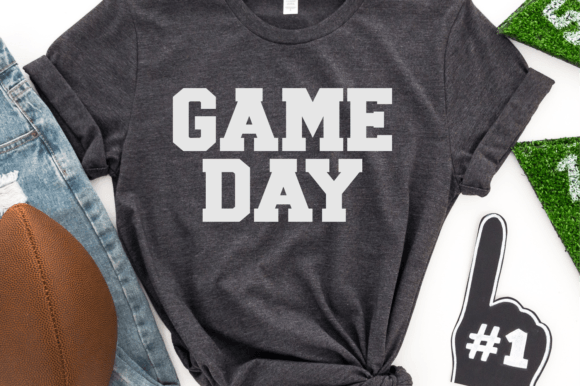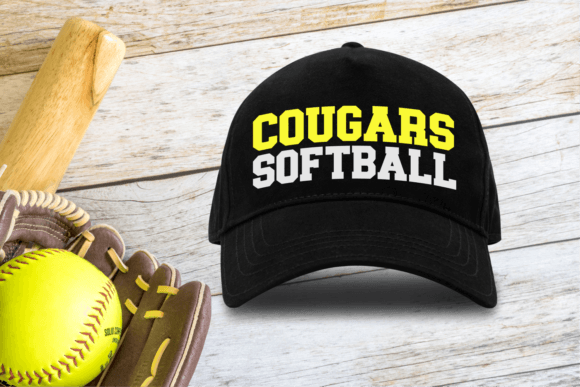
JP Sporty Tee is a bold and incredibly assertive slab serif font. Whether you’re using it for crafts, digital design, presentations, or making greeting cards, this font has the potential to become your favorite go-to font, no matter the occasion!
JP Sporty Tee Font